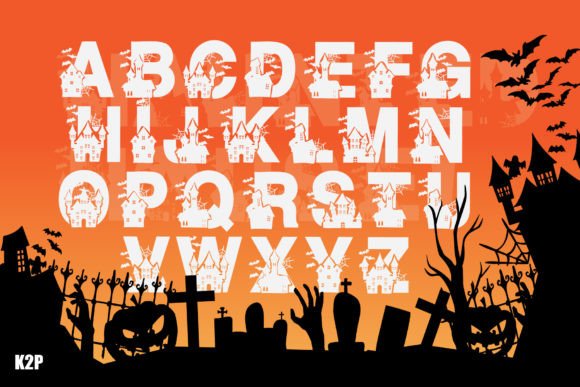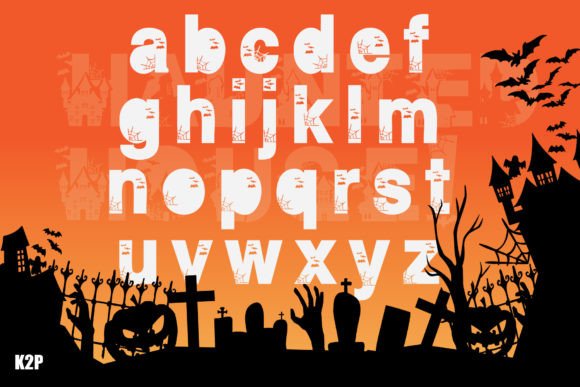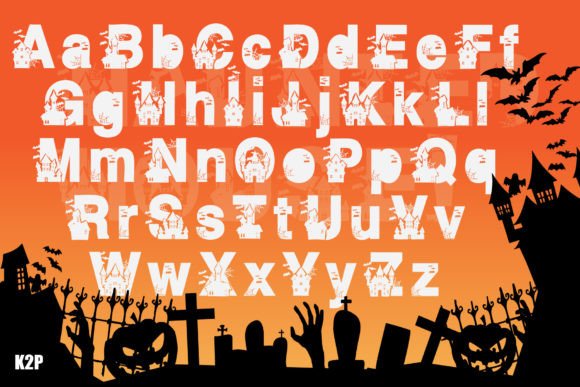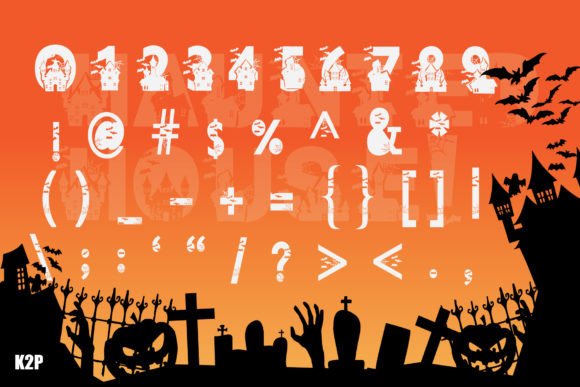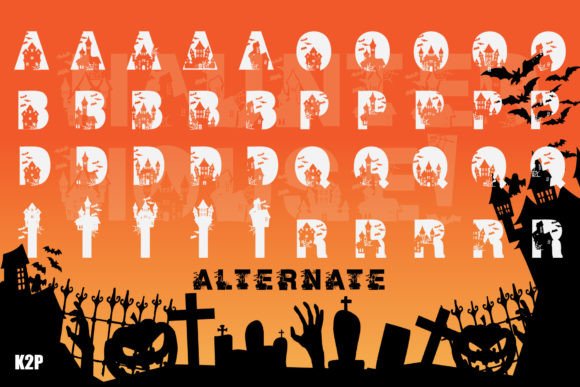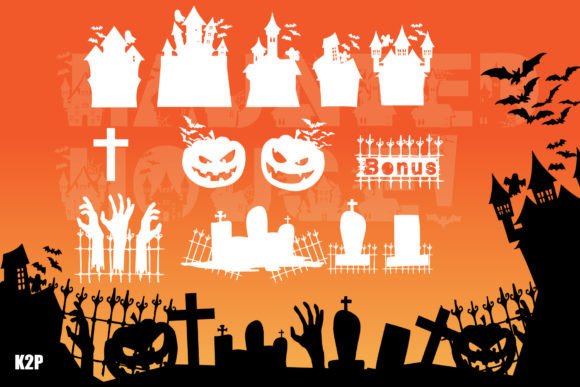
Unleash the Spookiness: Exploring the Haunted House Font
As the witching hour approaches, designers and crafters are on the lookout for the perfect typography to add a spine-tingling touch to their Halloween-themed projects. Look no further than the Haunted House Font, a thick-lettered and spooky decorative font that’s sure to cast a spell on your audience. In this article, we’ll dive into the eerie world of Haunted House Font, exploring its features, uses, and the creative possibilities it offers.
A Font that Embodies the Spirit of Halloween
The Haunted House Font is a masterfully crafted typeface that embodies the essence of Halloween. Its thick, bold letters seem to leap off the page, evoking the eerie and foreboding atmosphere of a haunted mansion. The font’s rugged texture and distressed edges add to its spooky charm, making it the perfect choice for any project that requires a haunting touch.
The Haunted House Font is incredibly versatile, making it suitable for a wide range of creative projects. Whether you’re designing:
- Halloween-themed invitations and party decorations
- Spooky signage and posters
- Eerie crafts and DIY projects
- Creepy digital graphics and animations
The only limit is your imagination! With the Haunted House Font, you can create a plethora of spine-tingling designs that will leave your audience shivering with delight.
PUA Encoding: Unlocking Endless Glyphs and Swashes
One of the standout features of the Haunted House Font is its PUA (Private Use Area) encoding. This means that you can access a vast array of glyphs and swashes with ease, allowing you to add an extra layer of creativity to your designs. With PUA encoding, you can:
- Insert intricate details and flourishes
- Experiment with unique ligatures and glyph combinations
- Unlock a world of creative possibilities
Tips and Tricks for Working with Haunted House Font
To get the most out of the Haunted House Font, here are some expert tips and tricks:
- Experiment with different font sizes and colors to create a unique visual hierarchy
- Combine the Haunted House Font with other spooky typography for a truly terrifying effect
- Don’t be afraid to get creative with glyphs and swashes – they’re there to be used!
The Haunted House Font is a game-changer for designers and crafters looking to add a touch of spookiness to their Halloween-themed projects. With its thick, bold letters, rugged texture, and PUA encoding, this font offers endless creative possibilities. So why wait? Unleash your inner ghoul and get creative with the Haunted House Font – your audience will thank you (or scream with delight)!
Get Ready to Cast a Spell on Your Audience
Whether you’re a seasoned designer or a crafty DIY enthusiast, the Haunted House Font is sure to cast a spell on your audience. So go ahead, get creative, and show the world what you’re working with. Happy designing, and Happy Halloween!